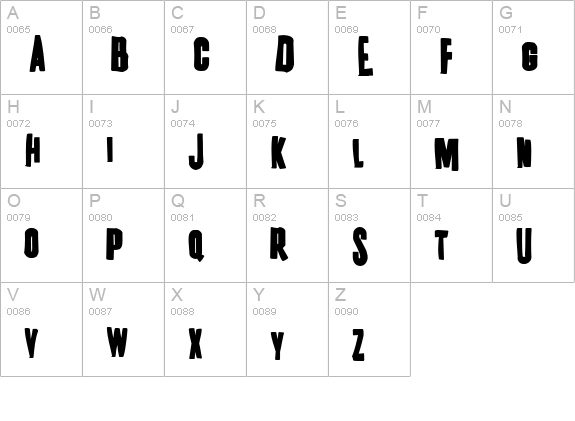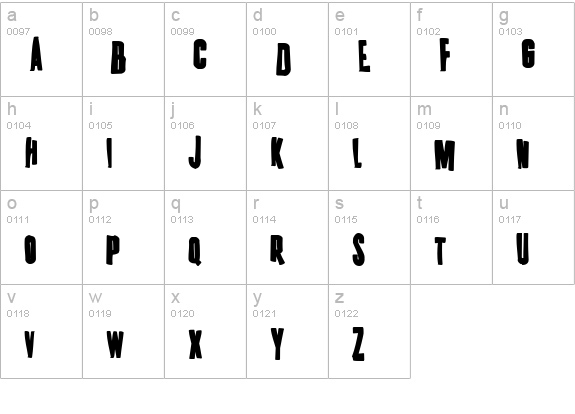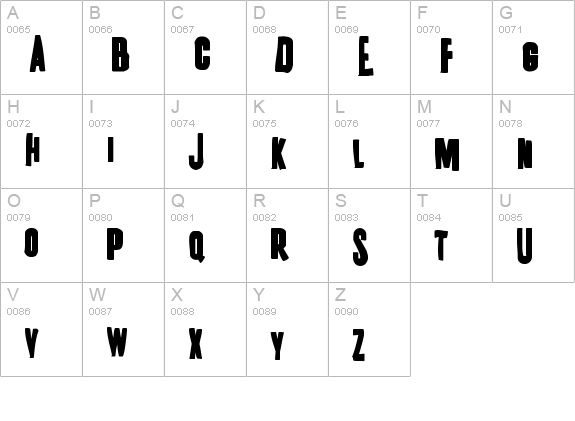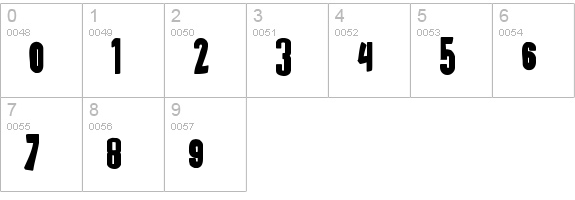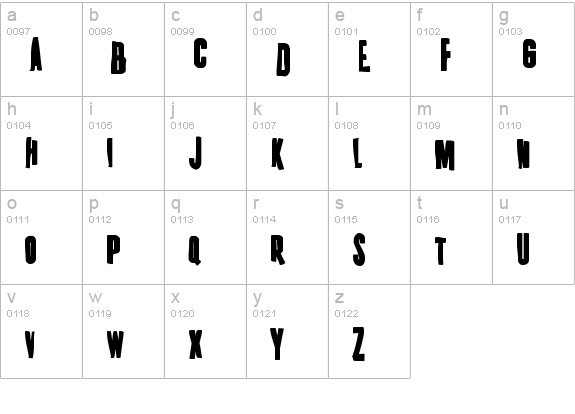
K.P. Duty Crusty JL Font Details
Introducing K.P. Duty Crusty JL font, a charming and versatile typeface that brings a touch of nostalgia to any design project. This unique font captures the essence of vintage signage with its beautifully weathered and worn appearance. Its irregular lines and rough edges give it an authentic and handcrafted feel, making it perfect for adding a touch of rustic charm to your designs. K.P. Duty Crusty JL font offers a wide range of uppercase and lowercase characters, as well as numerals and punctuation marks, providing endless possibilities for creating eye-catching headlines, logos, posters, and more. Its distinctive and slightly imperfect letterforms lend a sense of character and personality to your designs, making them stand out in a sea of conformity. What sets K.P. Duty Crusty JL font apart is its accessibility. This font is freely available to download at FontsMarket.com, allowing you to instantly add a touch of vintage flair to your projects without breaking the bank. Whether you're a seasoned designer or a novice enthusiast, this font is easy to use and works seamlessly across different design software. With K.P. Duty Crusty JL font, you can effortlessly evoke a sense of nostalgia and timelessness in your designs. Whether you're working on a retro-inspired branding project, a vintage-themed invitation, or simply want to add a touch of old-world charm to your designs, this font is sure to deliver. So why wait? Download K.P. Duty Crusty JL font today and let your creativity soar.